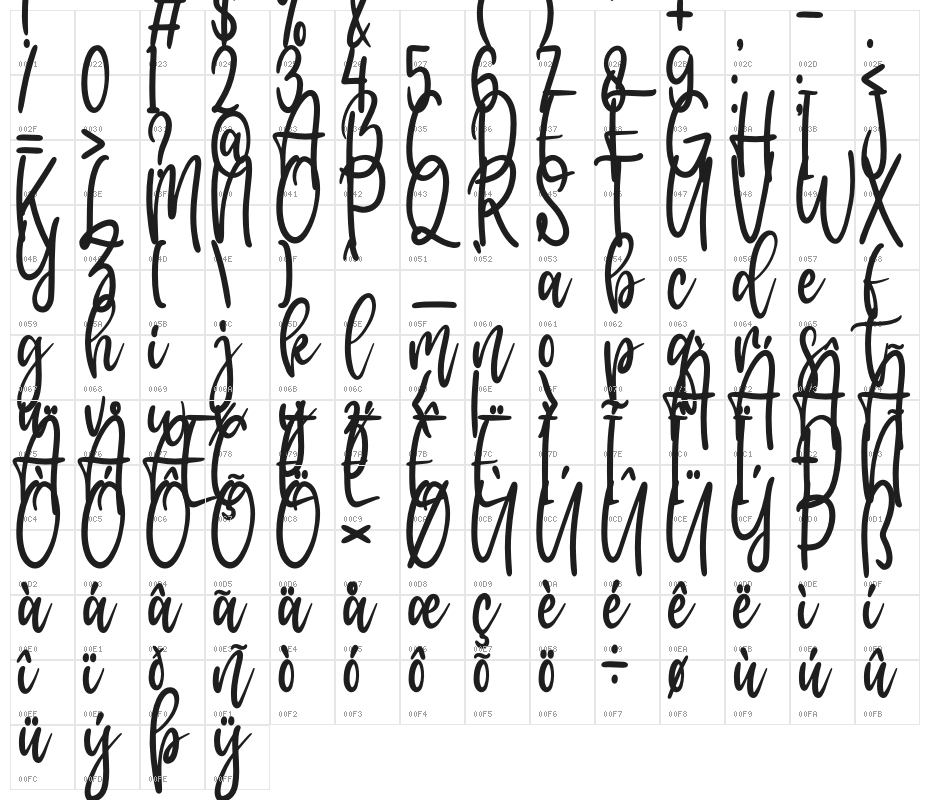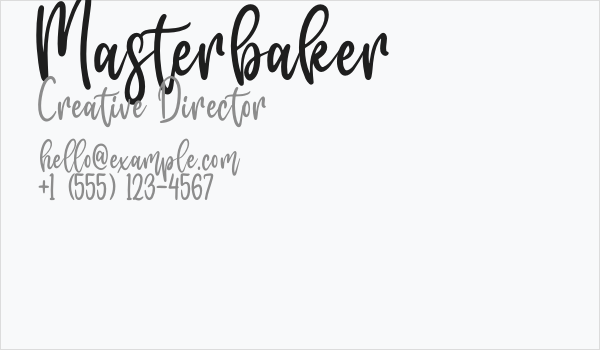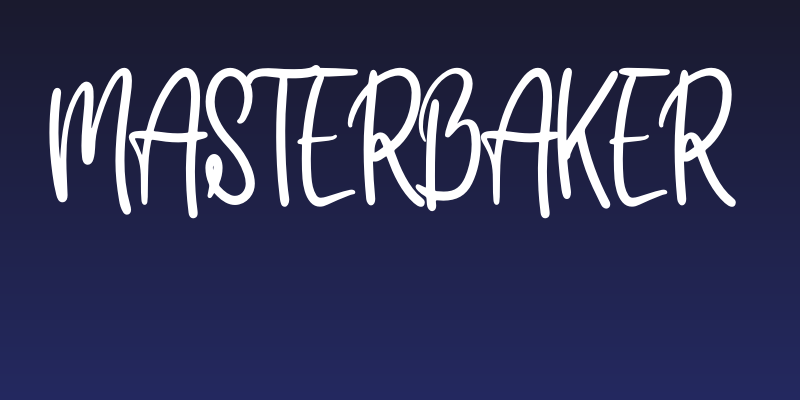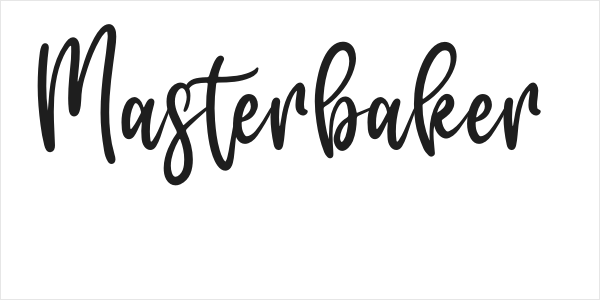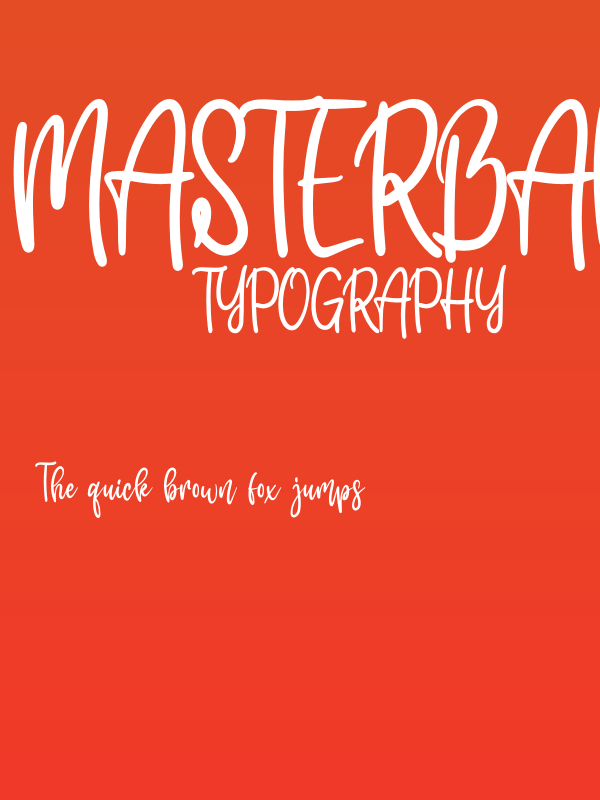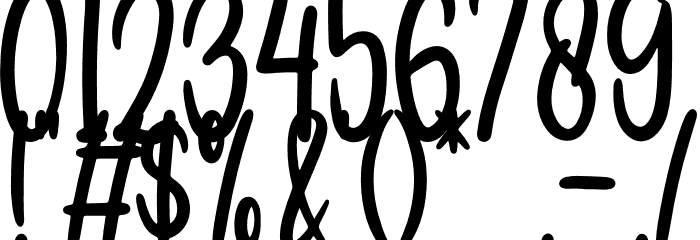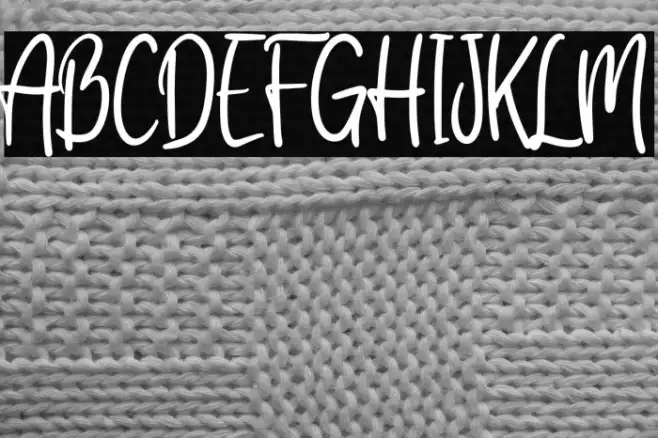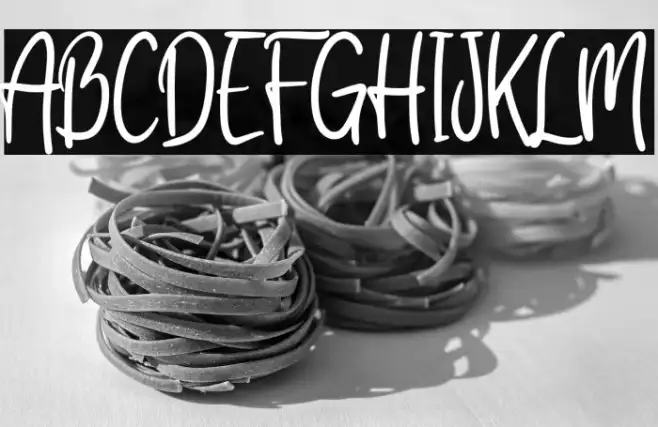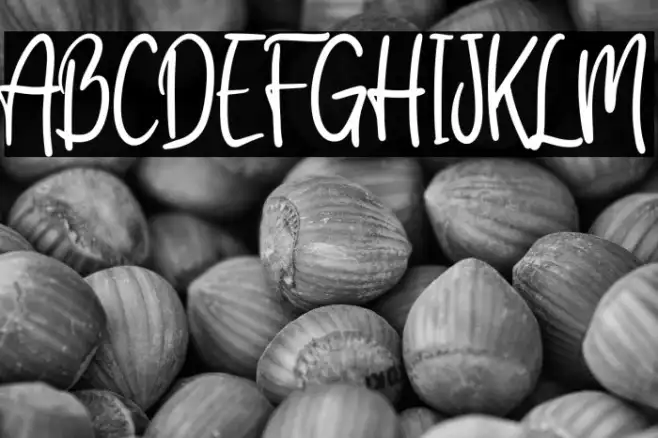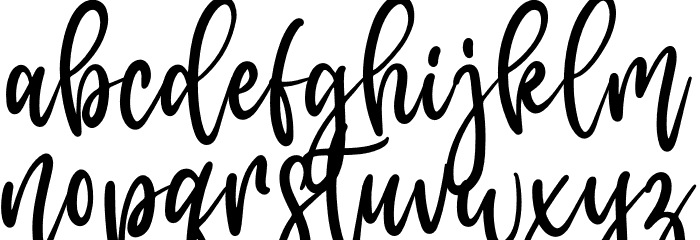
Masterbaker Font
Masterbaker Description
This font features a lively and expressive handwritten style, characterized by its fluid, cursive strokes and playful loops. The letters are connected, creating a sense of continuity and flow, while maintaining legibility. The uppercase letters are bold and prominent, with a slight slant that adds to the dynamic feel. The lowercase letters are more rounded and compact, complementing the uppercase with their smooth curves. Numbers and special characters follow the same energetic style, making them stand out. This font exudes a casual yet sophisticated charm, perfect for adding a personal touch to any design.
MASTERBAKER UPPERCASE
MASTERBAKER LOWERCASE
MASTERBAKER OTHER CHARS